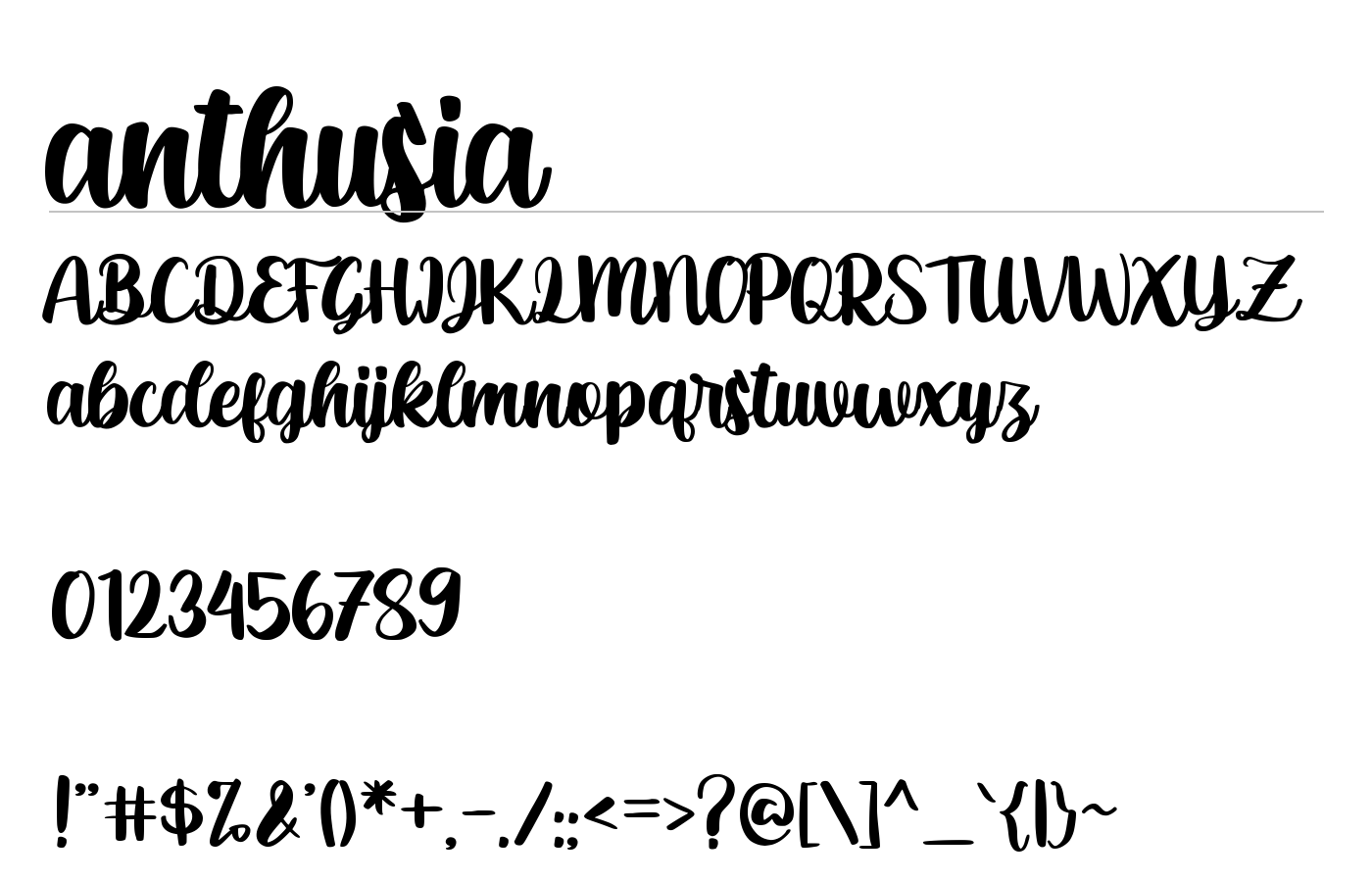
Anthusia is a lively and playful script font with smooth, rounded strokes and a medium weight that gives it a bold yet friendly appearance. Its fluid, connected letterforms and slightly bouncy baseline create an inviting, handcrafted feel, making it perfect for branding, invitations, and casual, creative projects that want to convey warmth and personality. This font works best in headlines and logos where a charming, approachable vibe is desired.
anthusia Font